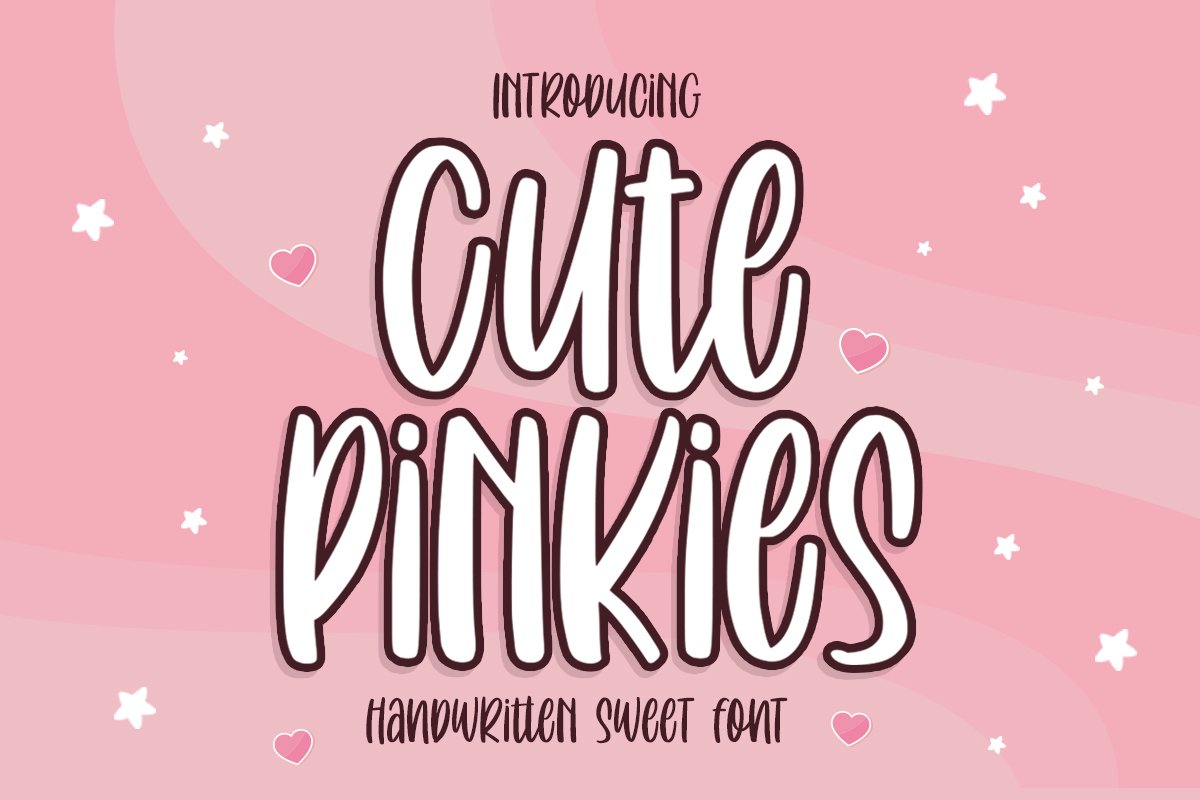
Cute Pinkies | Quirky Font
Cute Pinkies
Cute Pinkies is a cute and casual handwritten font with an incredibly friendly feel. Whether you’re looking for fonts for Instagram or calligraphy scripts for DIY projects, Cute Pinkies will turn any creative idea into a true piece of art!